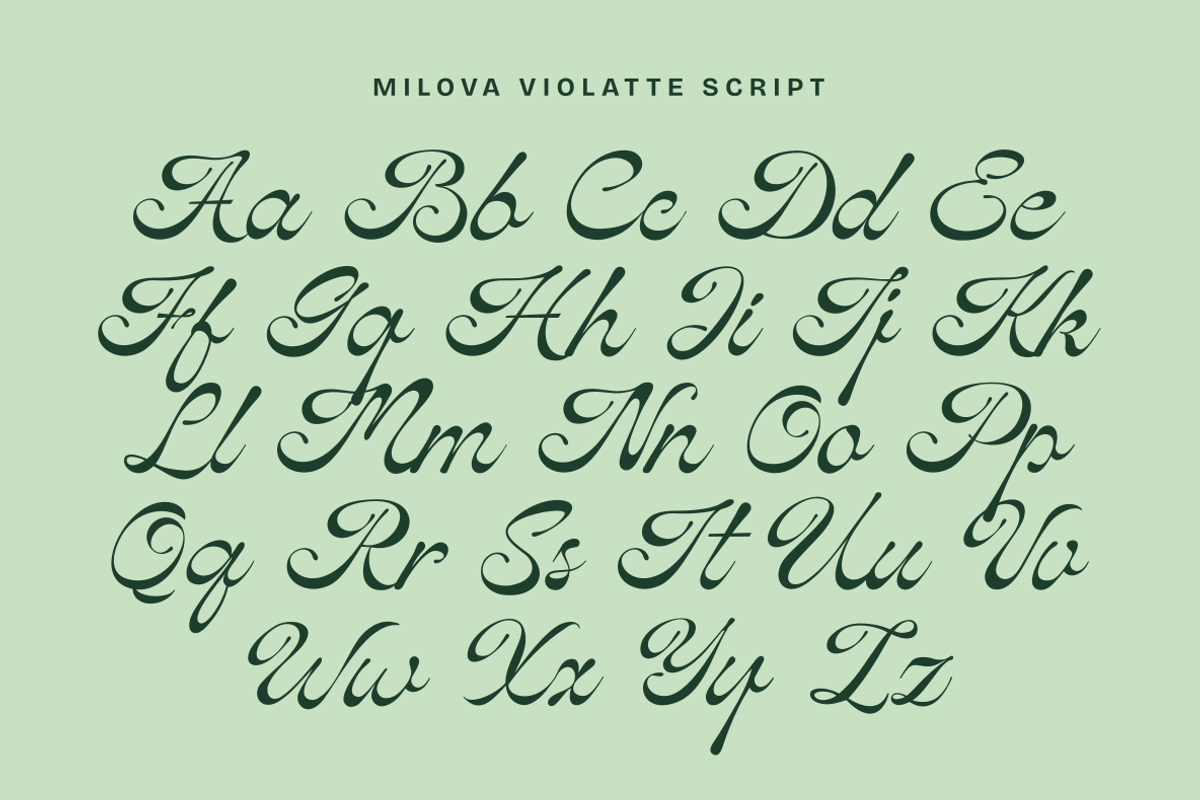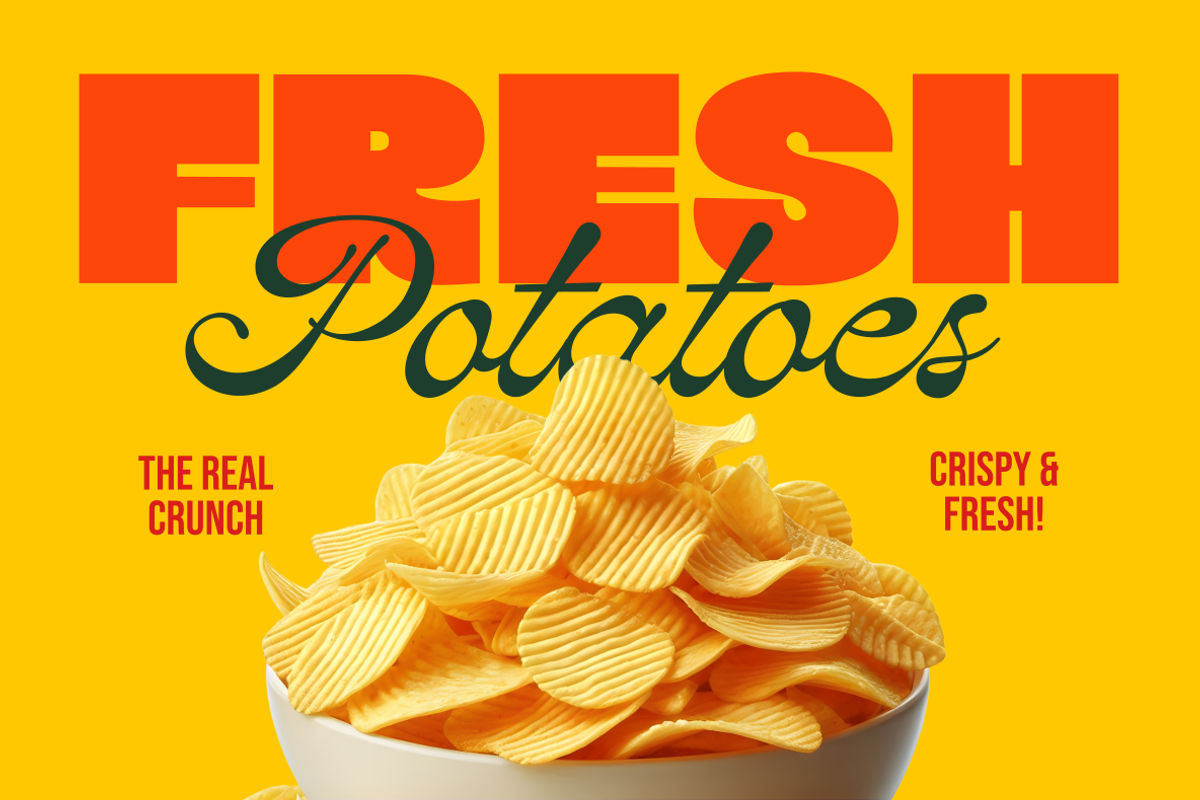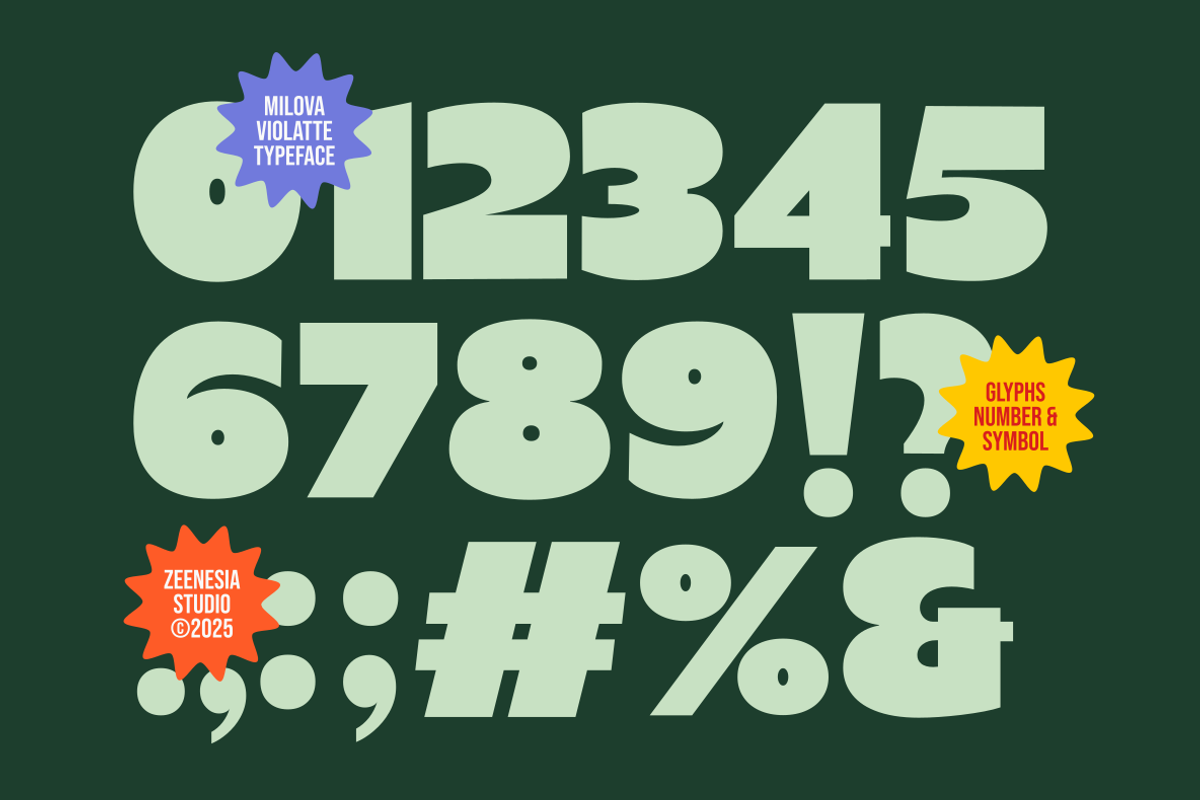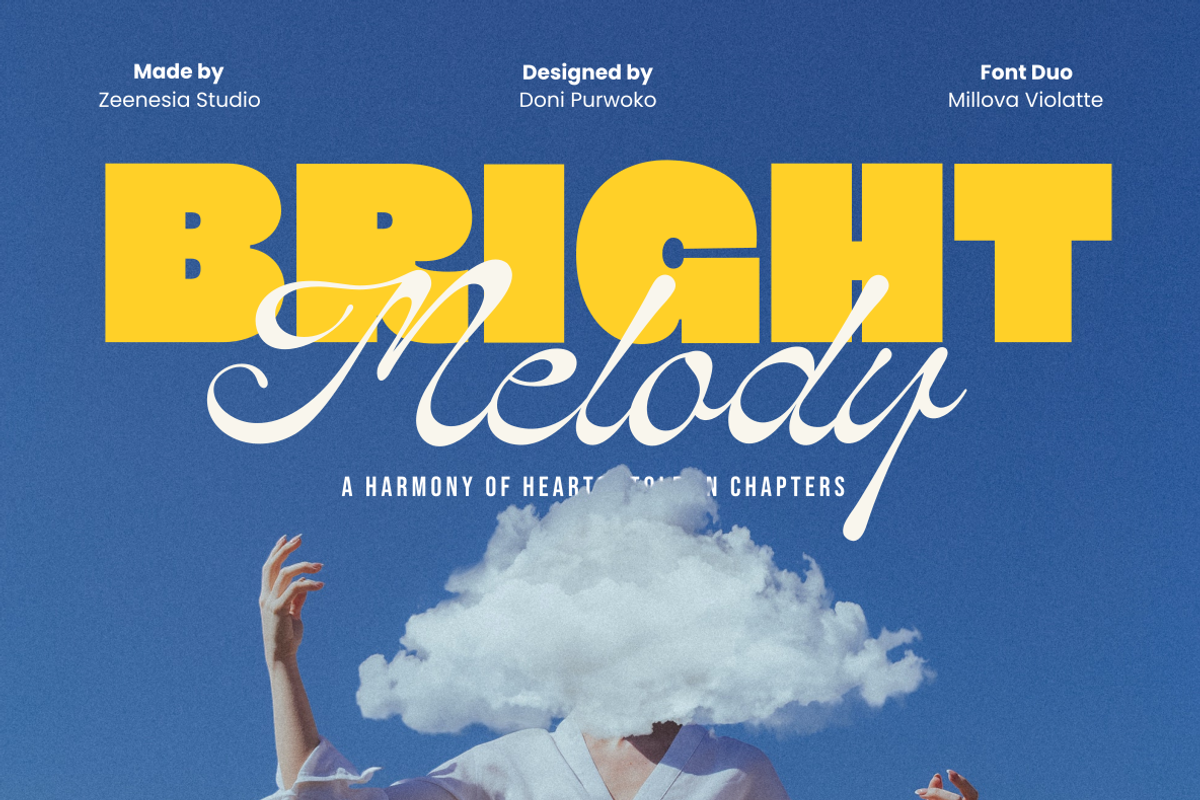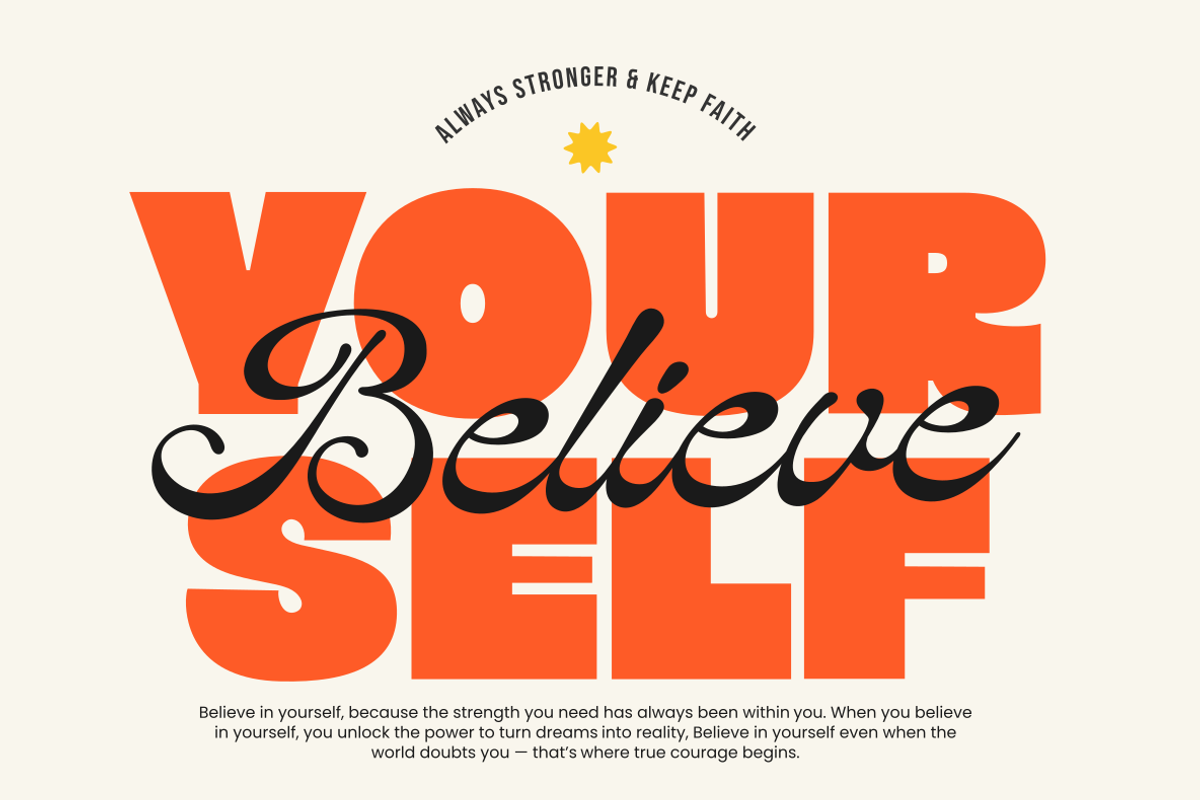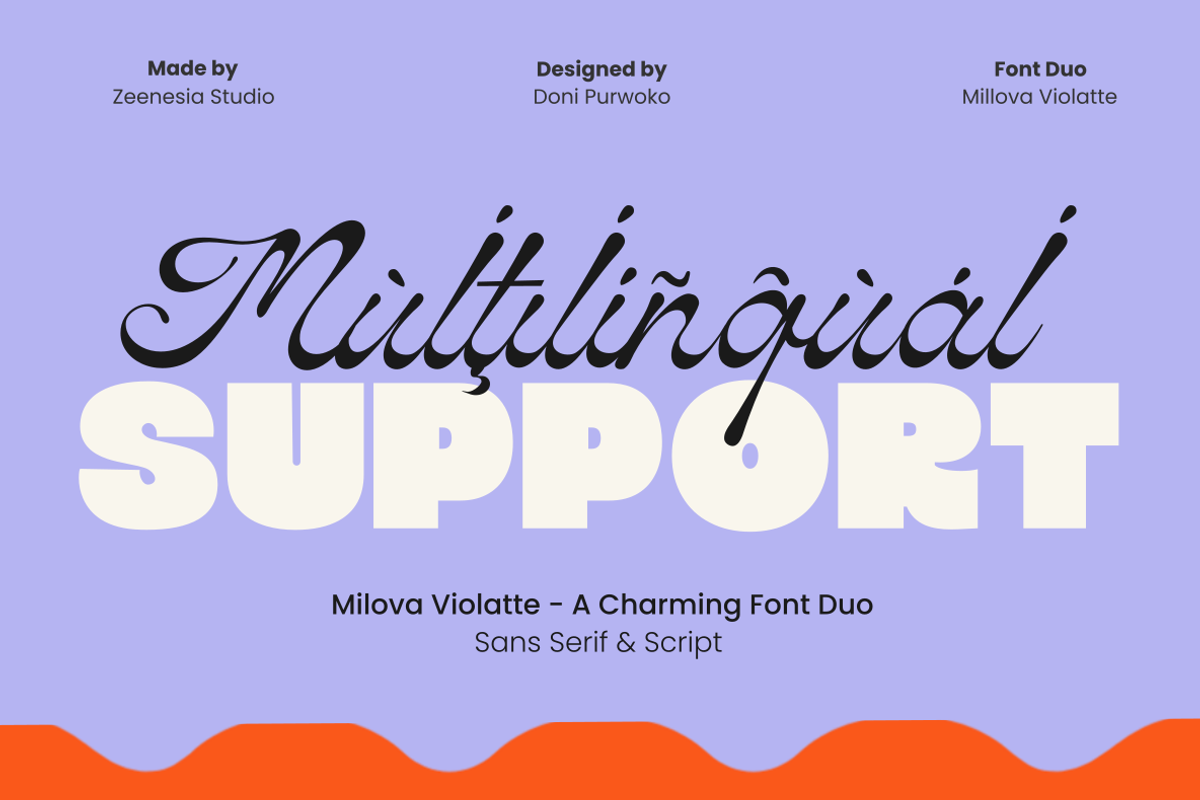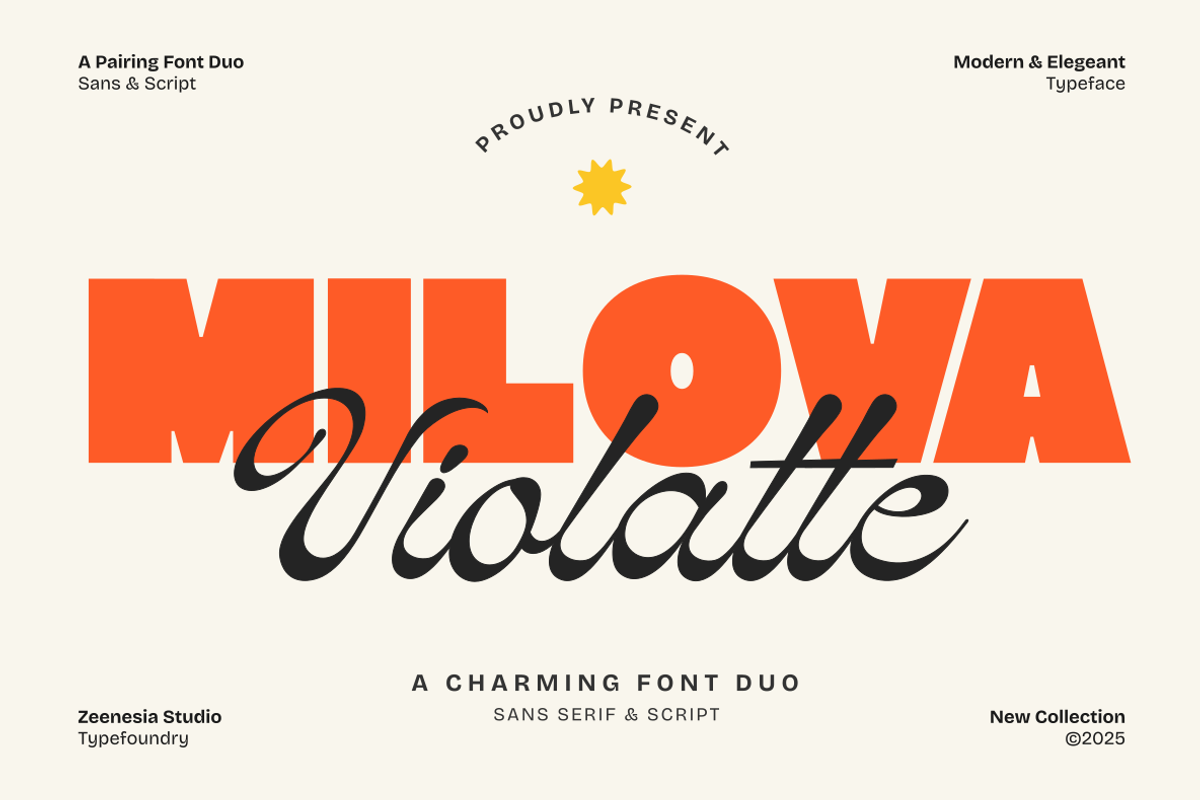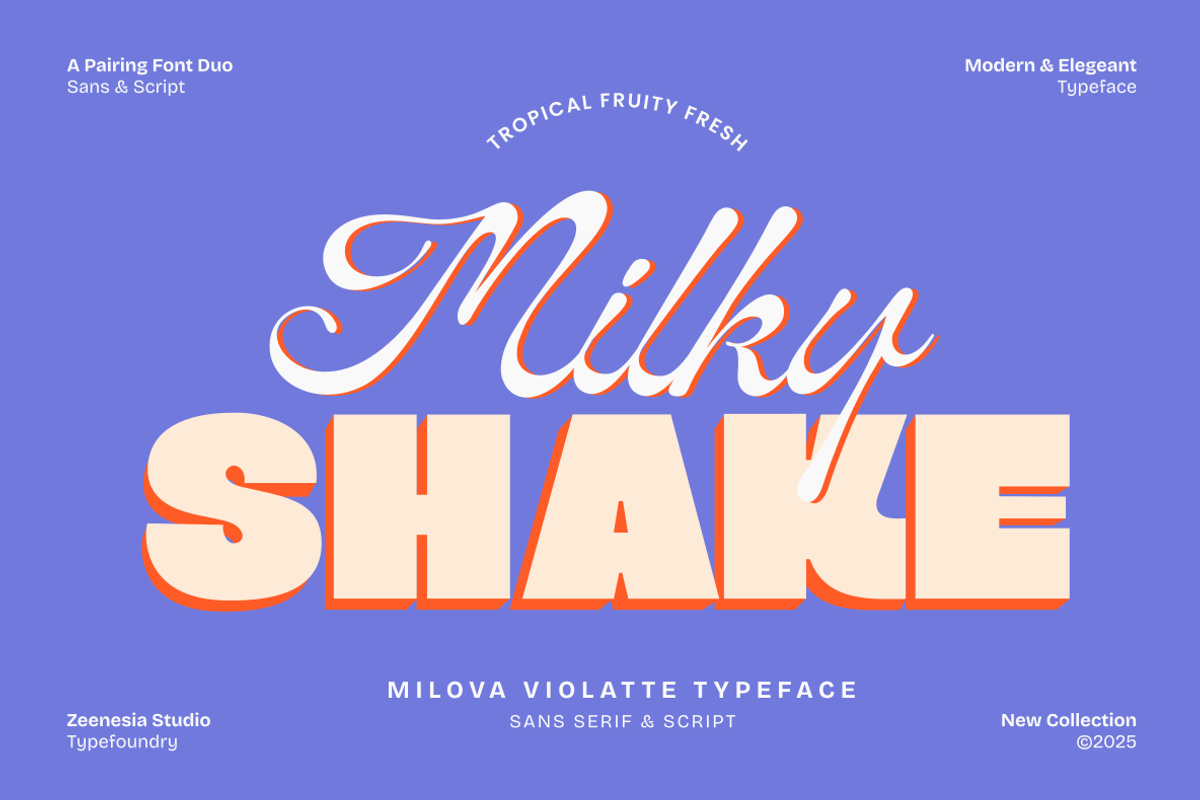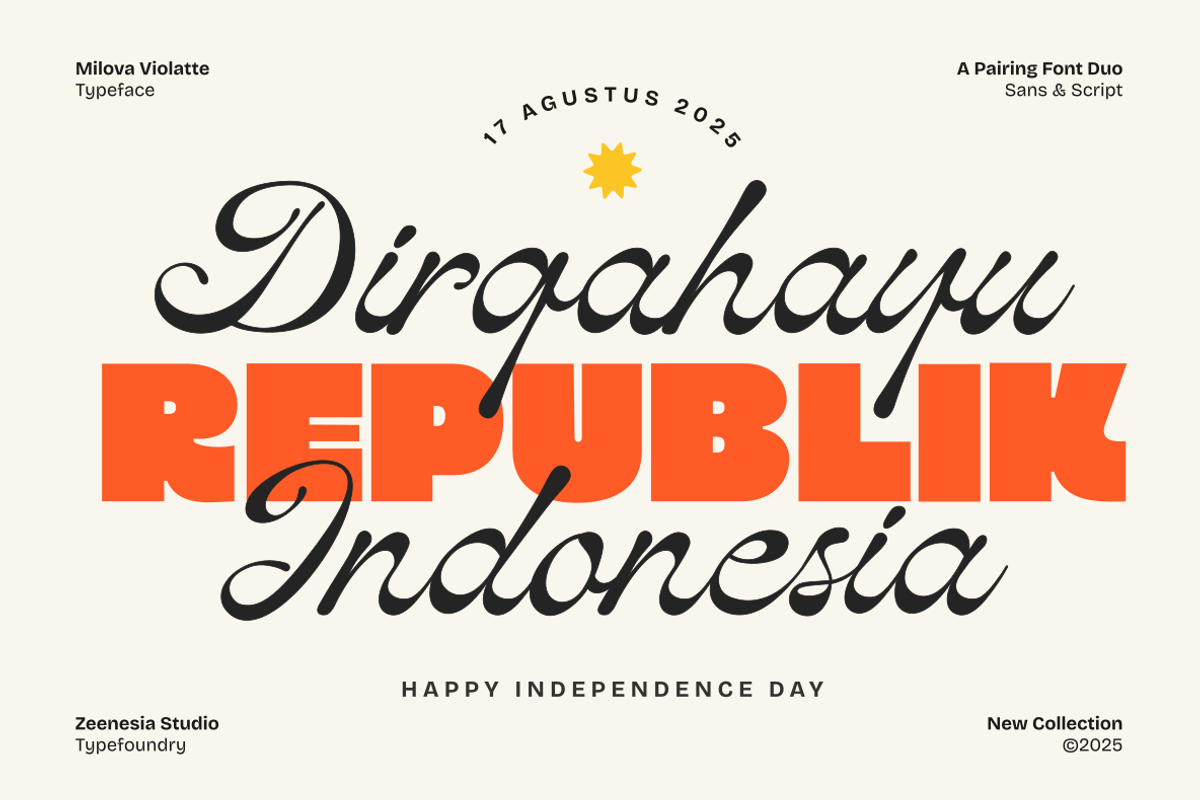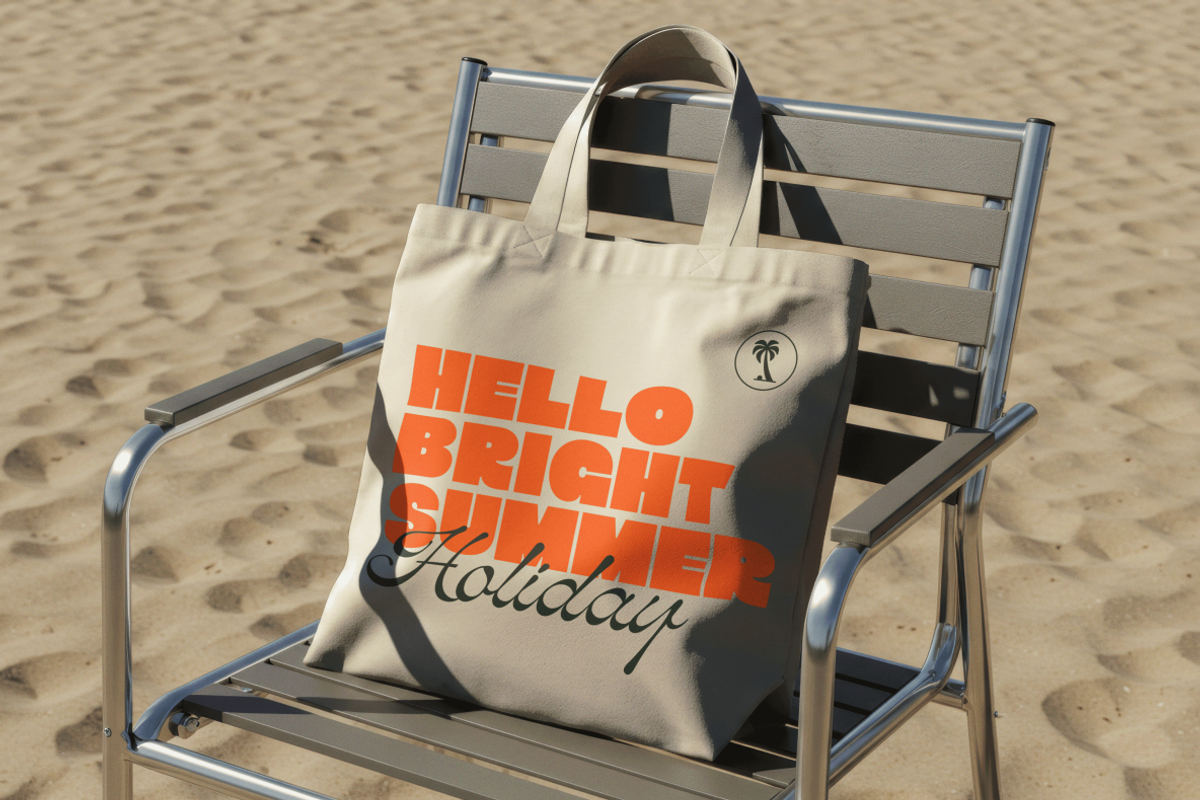
Milova Violatte
Milova Violatte – A Charming Font Duo
Milova Violatte is a stylish and versatile font duo that perfectly combines the bold confidence of a modern sans serif with the graceful flow of an elegant script. Designed to create a striking visual harmony, this pairing is ideal for projects that require both strength and sophistication.
The sans serif style delivers a clean, impactful, and contemporary look, making it perfect for headlines, posters, and branding. Meanwhile, the script style adds a touch of charm and refinement, suitable for invitations, logos, packaging, and editorial design.
With its modern yet timeless character, Milova Violatte offers designers the flexibility to craft designs that stand out—whether for personal projects or professional branding.